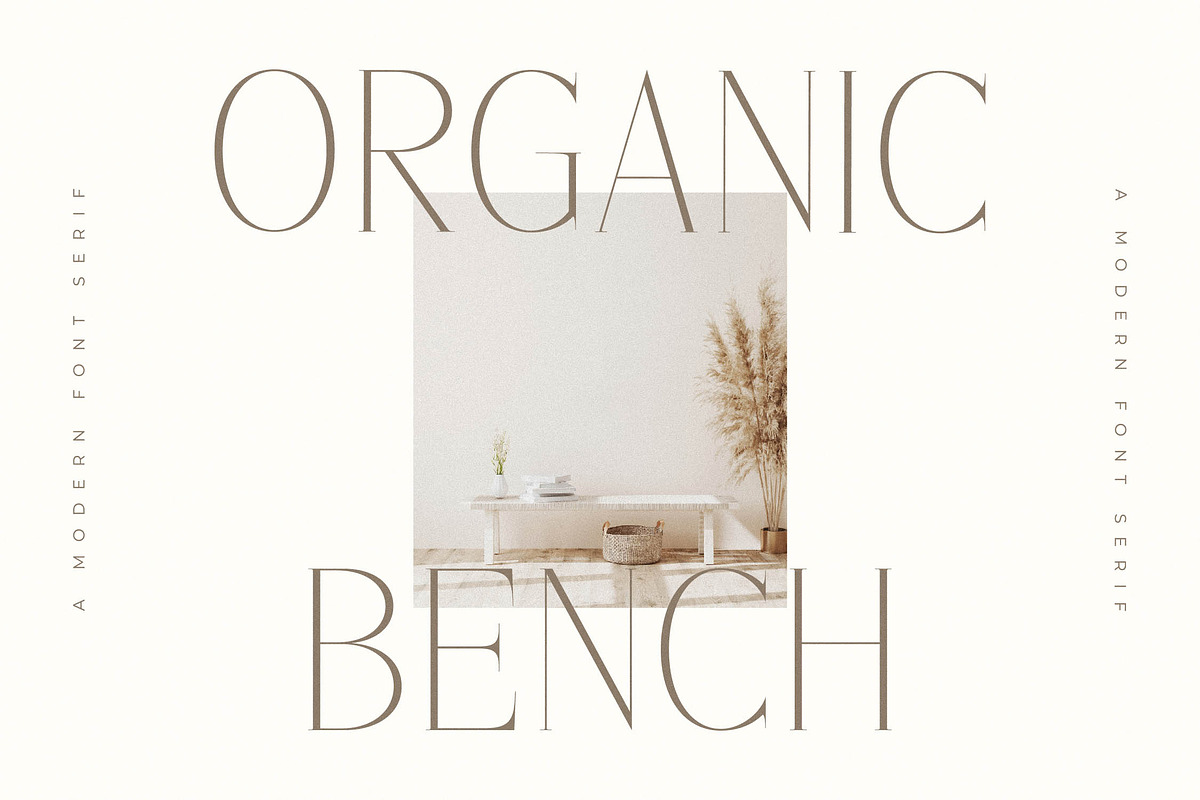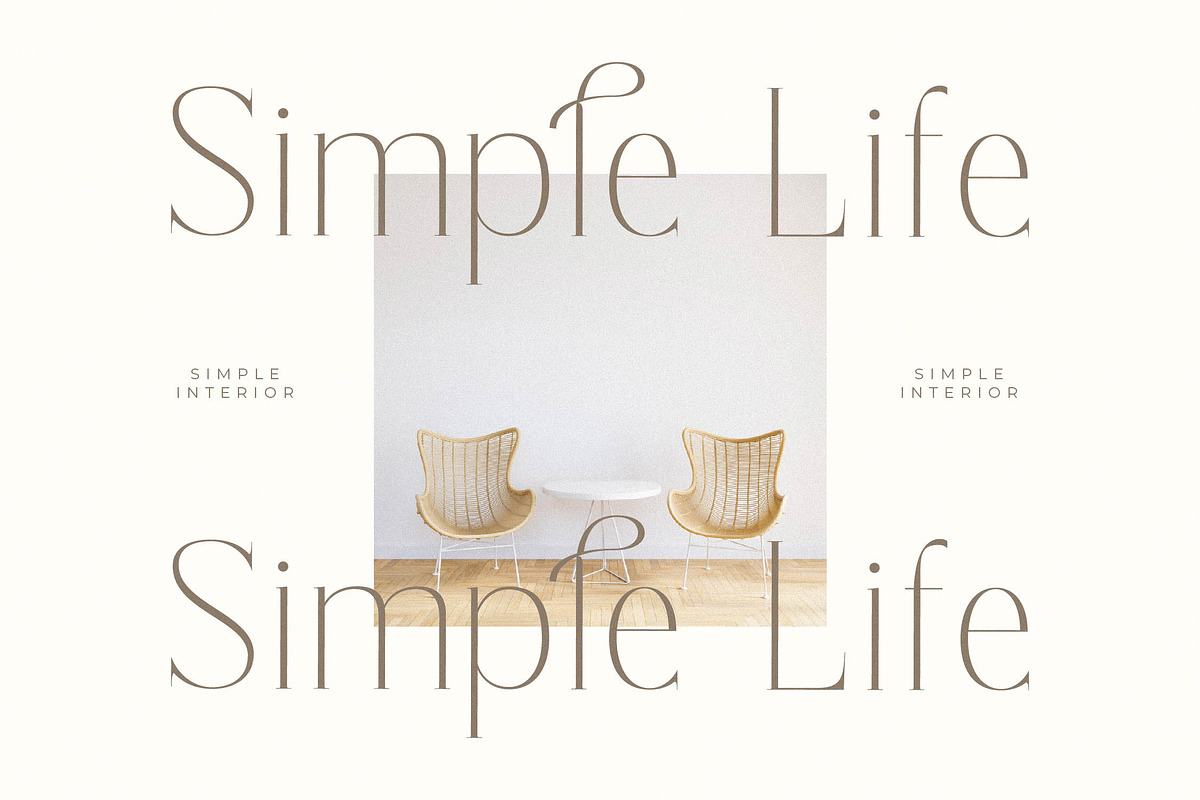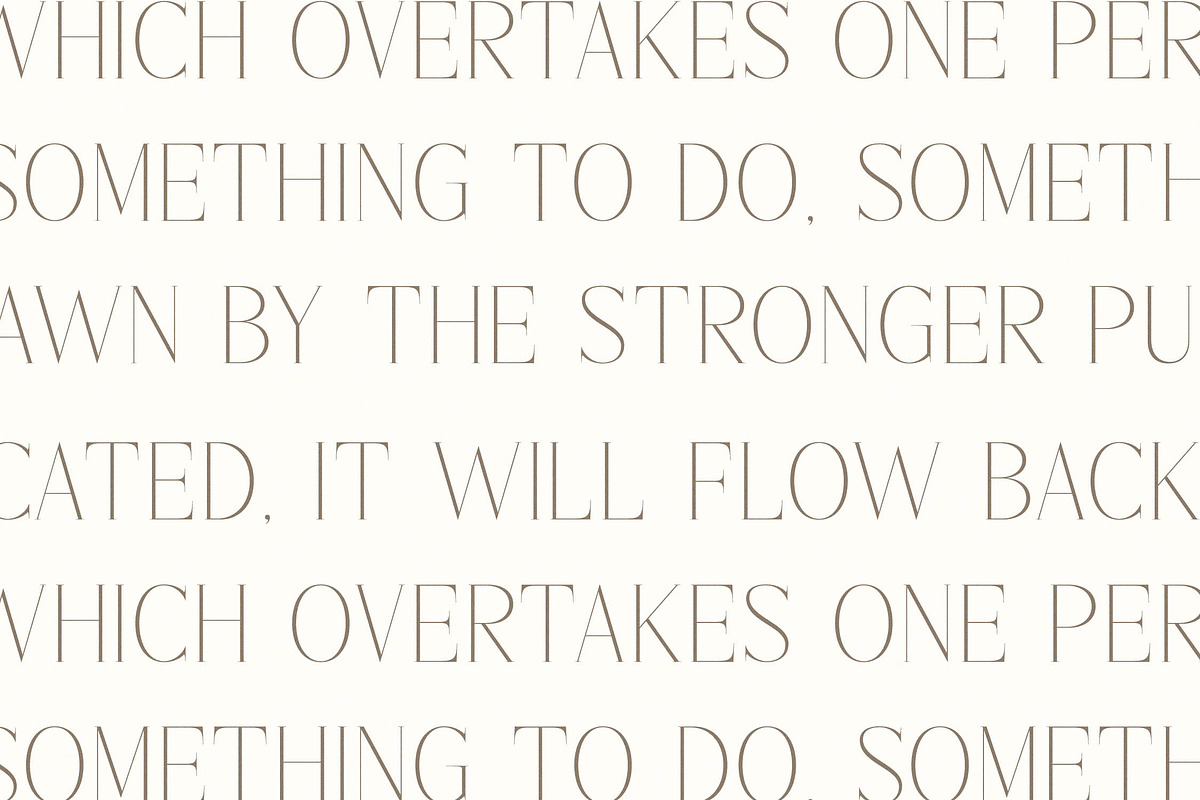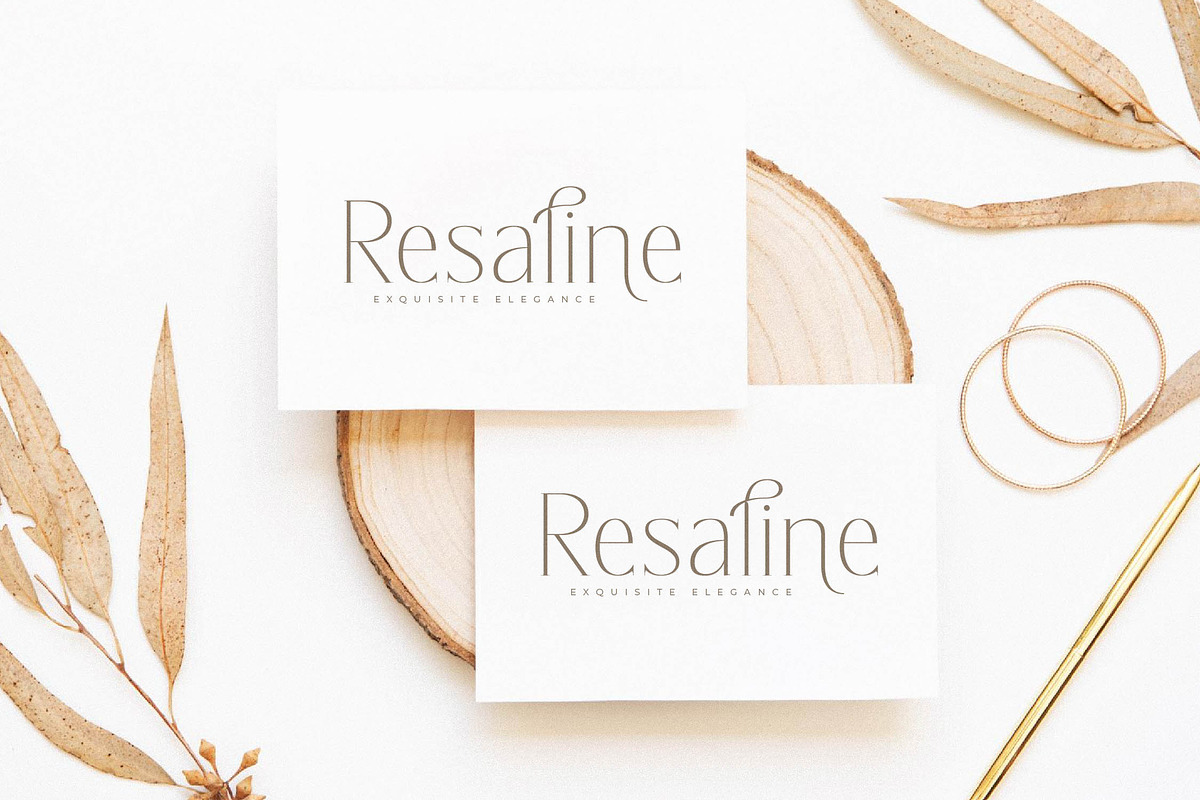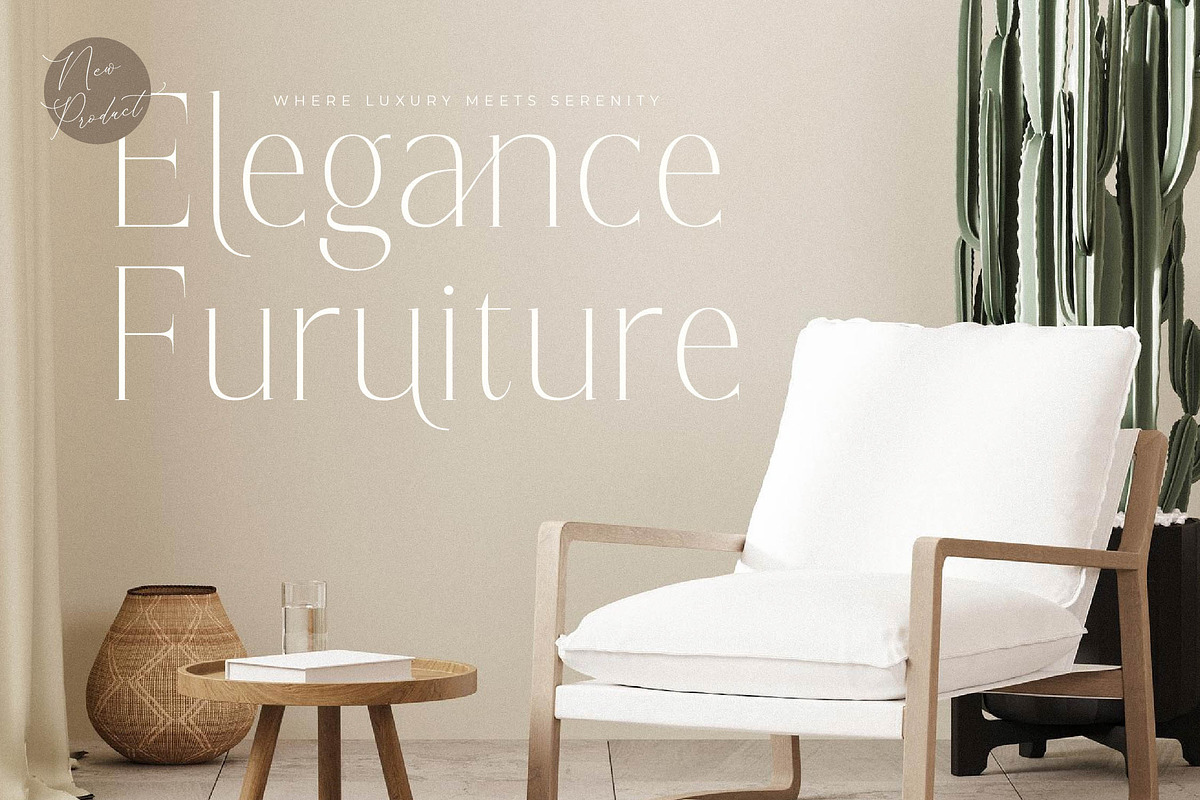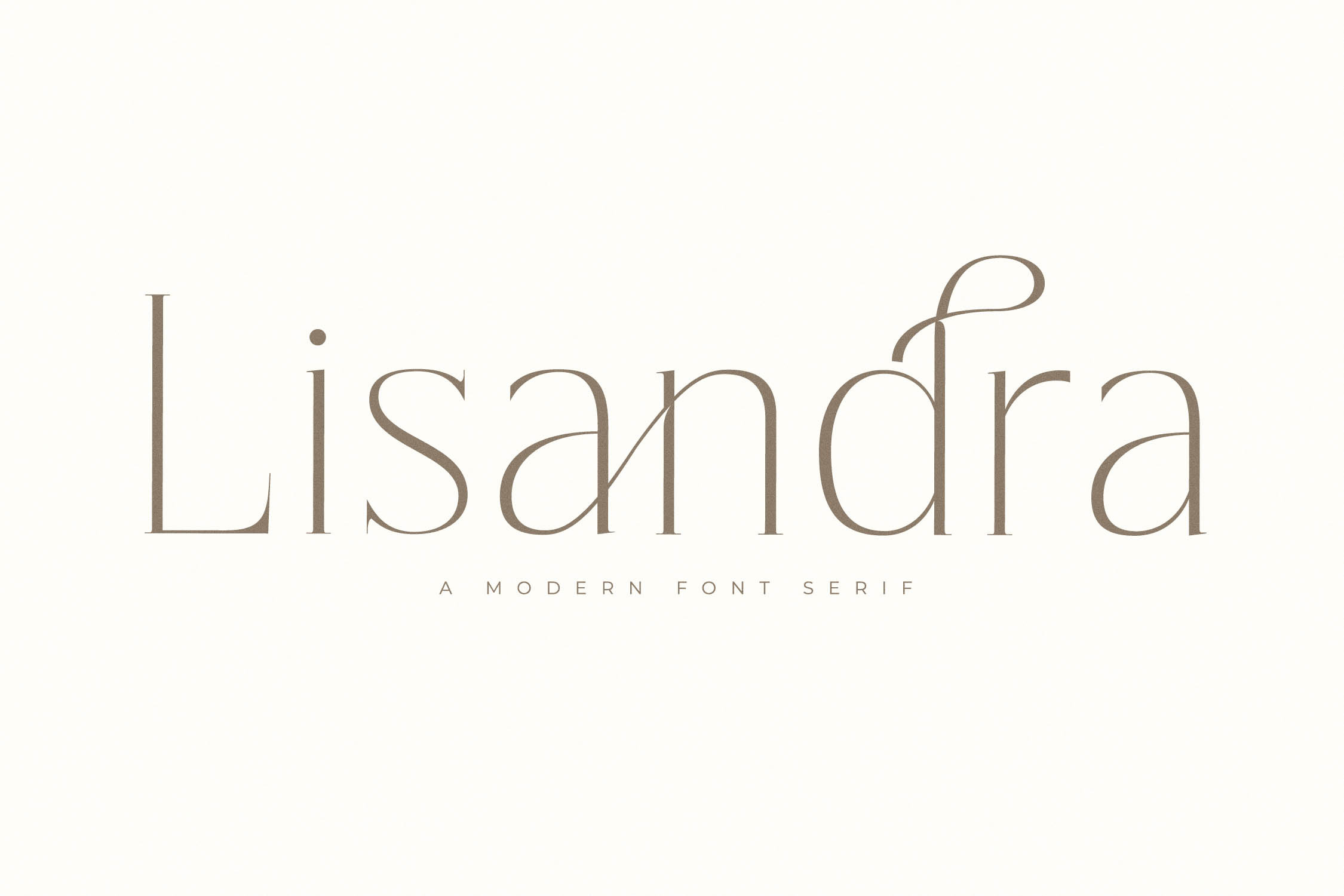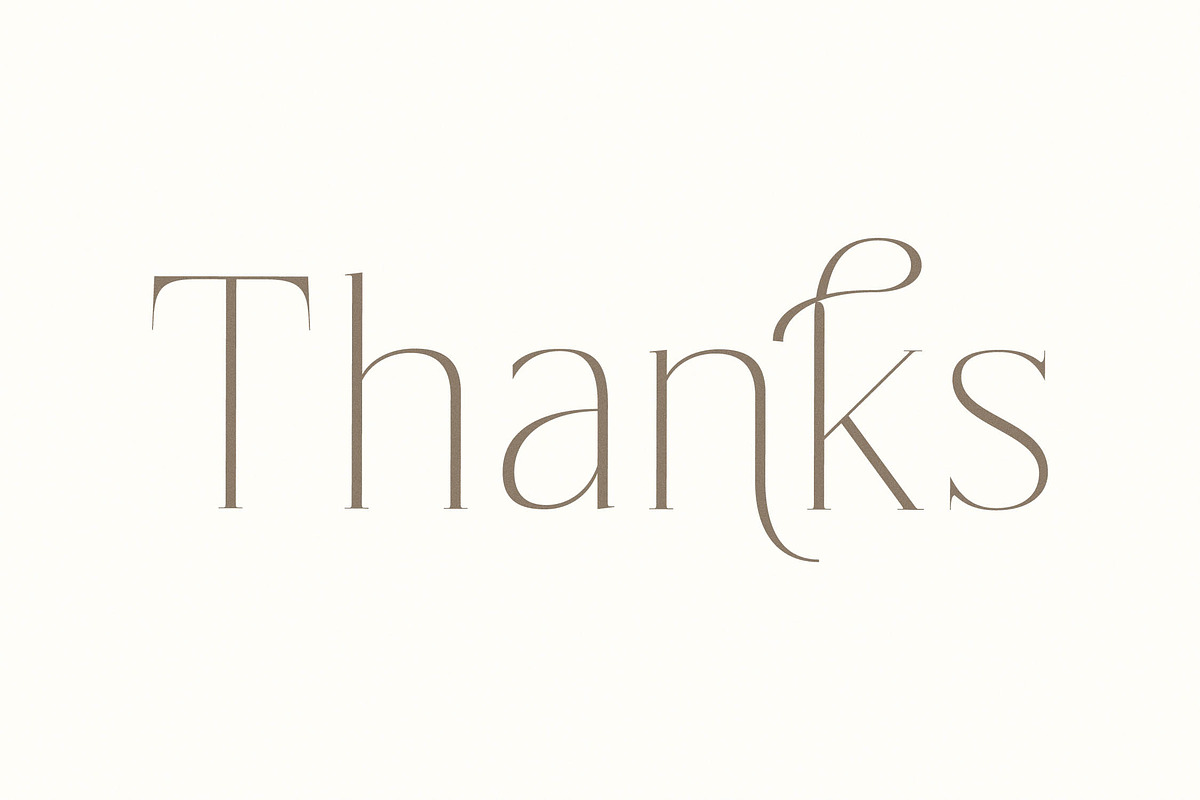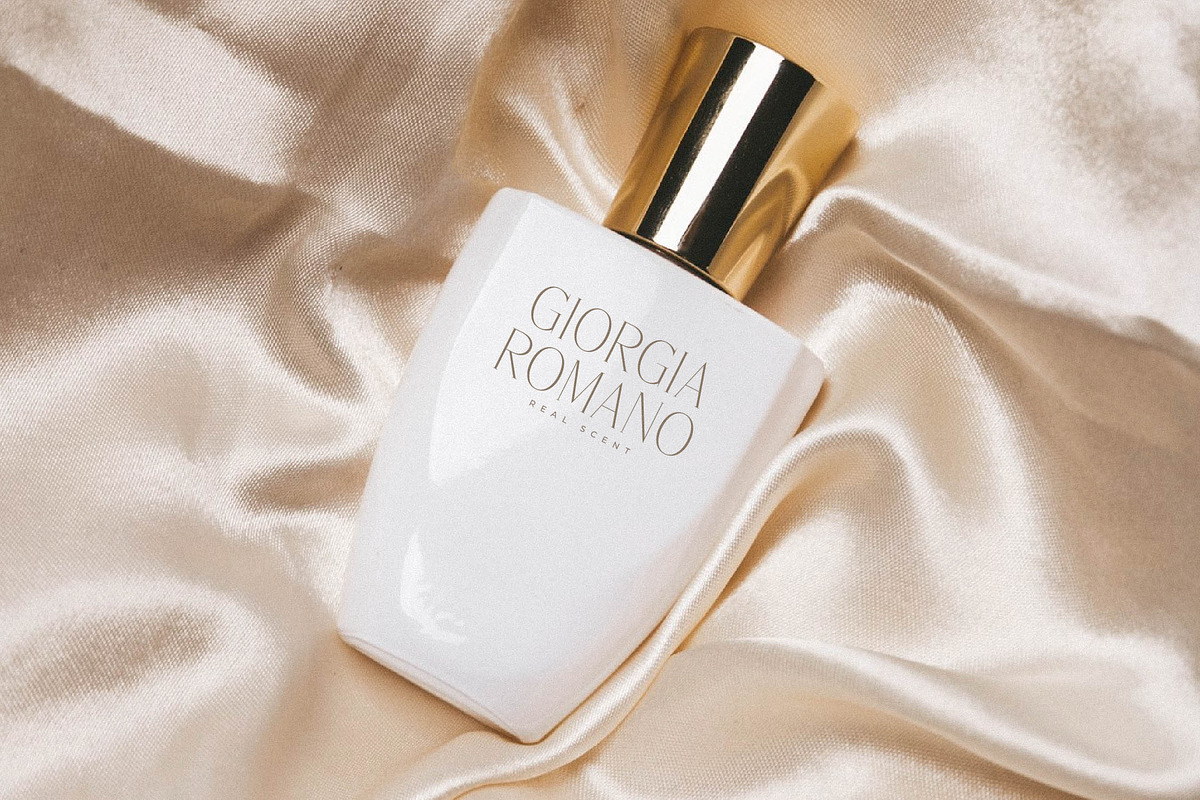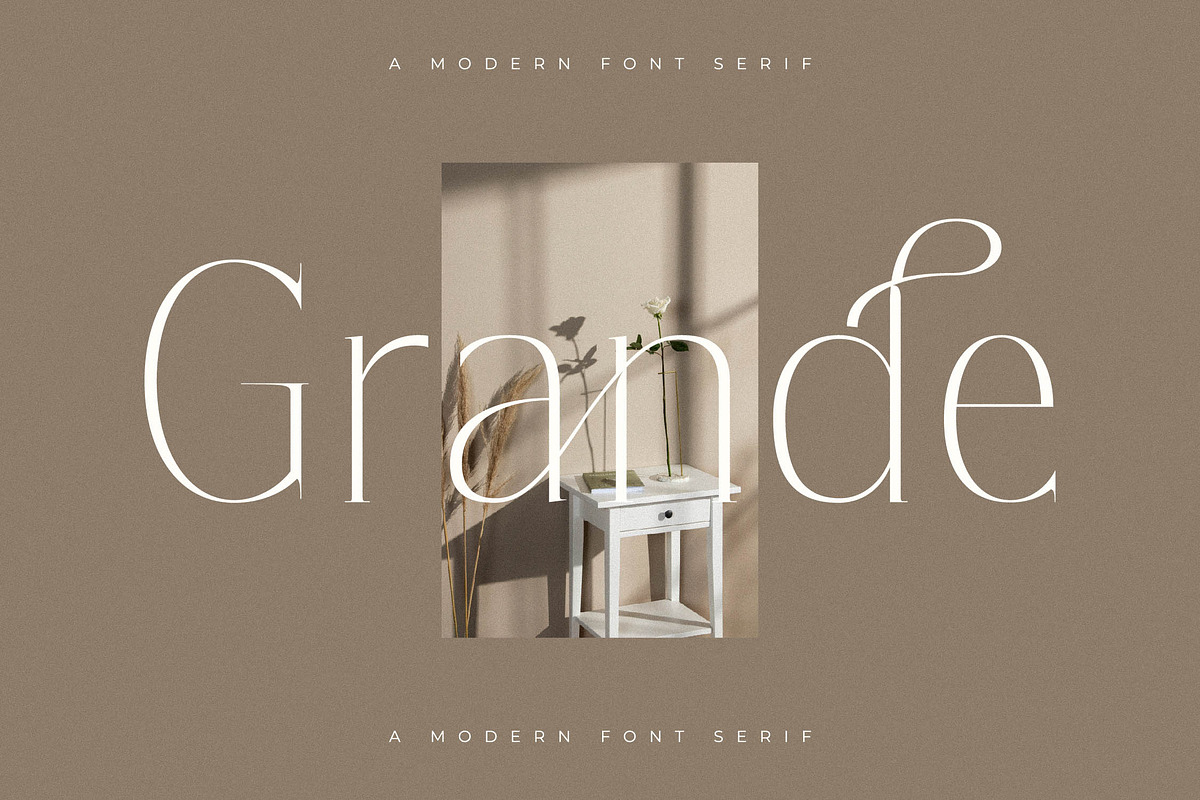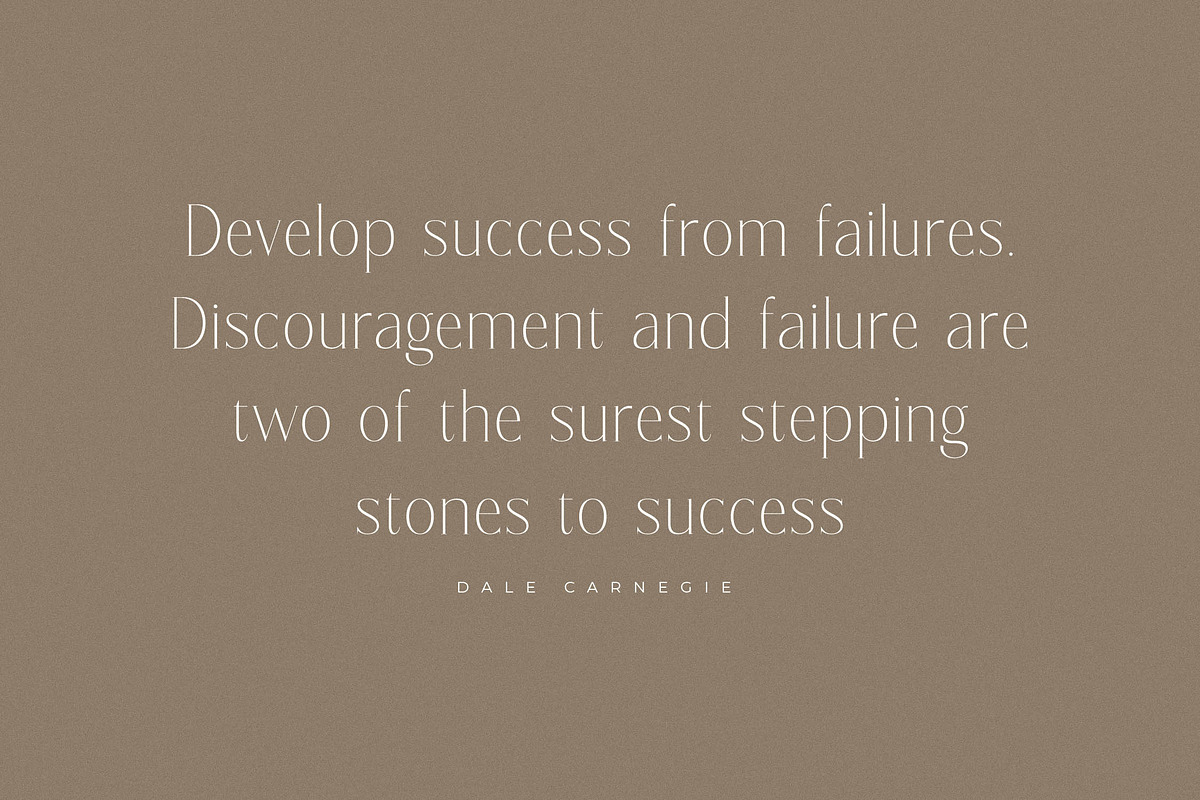
Lisandra A Modern Font Serif
Proudly present Lisandra Typeface , created by Storytype, A serif modern and classic typeface that has own unique style & modern look. This typeface is perfect for an elegant & luxury logo, book or movie title design, fashion brand, magazine, clothes, lettering, quotes, and so much more.